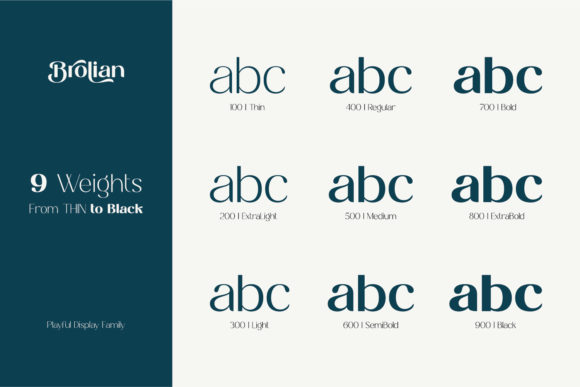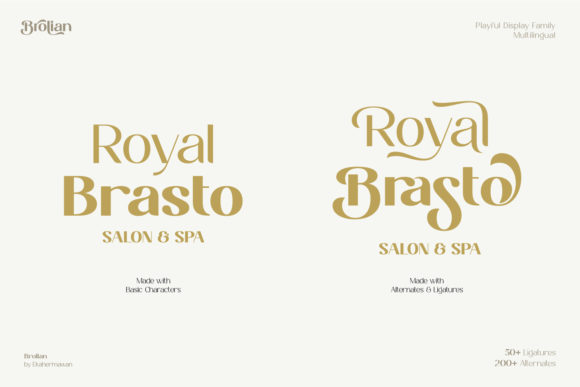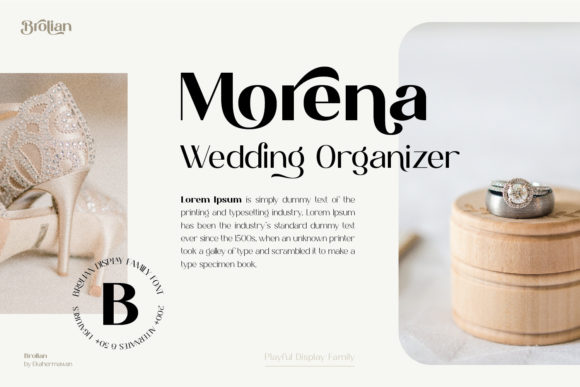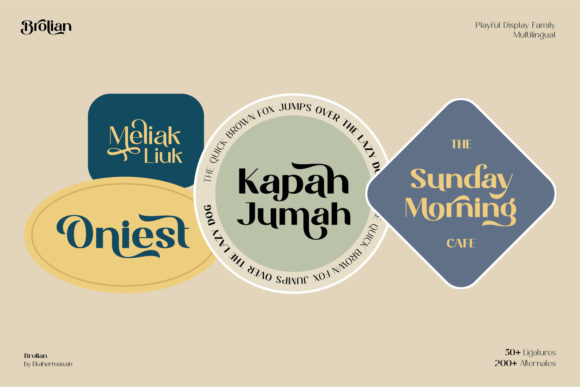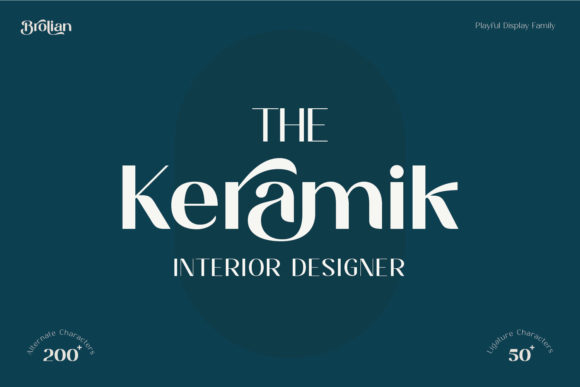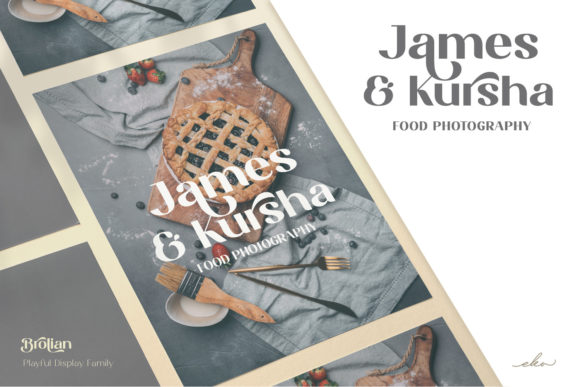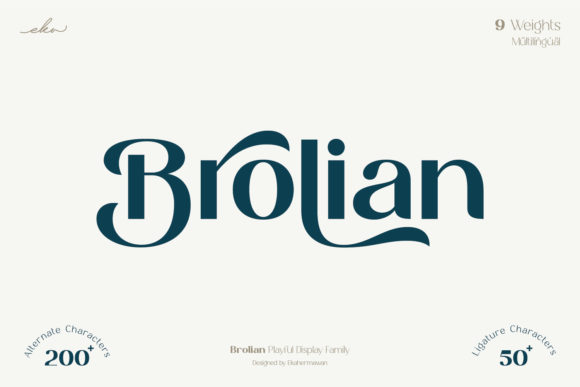
Introducing Brolian Font: The Perfect Blend of Playfulness and Style
In the world of typography, a good font can make all the difference in elevating your design projects from ordinary to extraordinary. If you’re a designer, crafter, or DIY enthusiast looking for a font that embodies both playfulness and sophistication, look no further than Brolian Font. This stylish display font is designed to add a touch of elegance and whimsy to your creations, making it the perfect choice for a wide range of applications.
Balanced and Varied: The Unique Characteristics of Brolian Font
Brolian Font strikes the perfect balance between being too thin and too thick, making it a versatile choice for various design projects. Its balanced and varied letterforms ensure that your text remains legible and visually appealing, whether you’re using it for a title, heading, or body text. The font’s moderate weight gives it a sturdy yet refined appearance, making it suitable for both digital and print applications.
Brolian Font is a designer’s dream come true. Its playful and stylish nature makes it perfect for a wide range of projects, from branding and advertising to packaging and web design. Crafters will also love working with Brolian Font, as it can add a touch of personality to their handmade products, such as craft tutorials, planners, and journals. The font’s versatility ensures that it can be used in various contexts, from formal to informal, making it a valuable addition to any design library.
Use Cases for Brolian Font
So, what can you create with Brolian Font? The possibilities are endless! Here are a few ideas to get you started:
- Branding and Logo Design: Use Brolian Font to create a unique and memorable brand identity that stands out from the crowd.
- Social Media Graphics: Add a touch of personality to your social media posts and stories with Brolian Font’s playful and stylish letterforms.
- Packaging Design: Make your product packaging stand out with Brolian Font’s elegant and refined appearance.
- Craft Tutorials: Add a personal touch to your craft tutorials, planners, and journals with Brolian Font’s whimsical and artistic flair.
In conclusion, Brolian Font is a versatile and stylish display font that is perfect for designers, crafters, and DIY enthusiasts. Its balanced and varied letterforms, combined with its PUA encoding, make it an excellent choice for a wide range of design projects. Whether you’re looking to add a touch of playfulness or sophistication to your creations, Brolian Font is sure to deliver. So why wait? Get creative with Brolian Font today and take your designs to the next level!